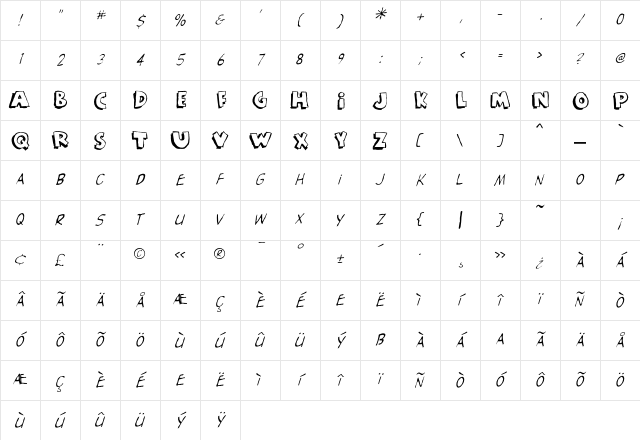
Rant Regular Free Font
Rant Regular
Design Context for Rant
Rant is a composed and adaptable typeface that performs quietly and consistently across a wide range of design contexts.